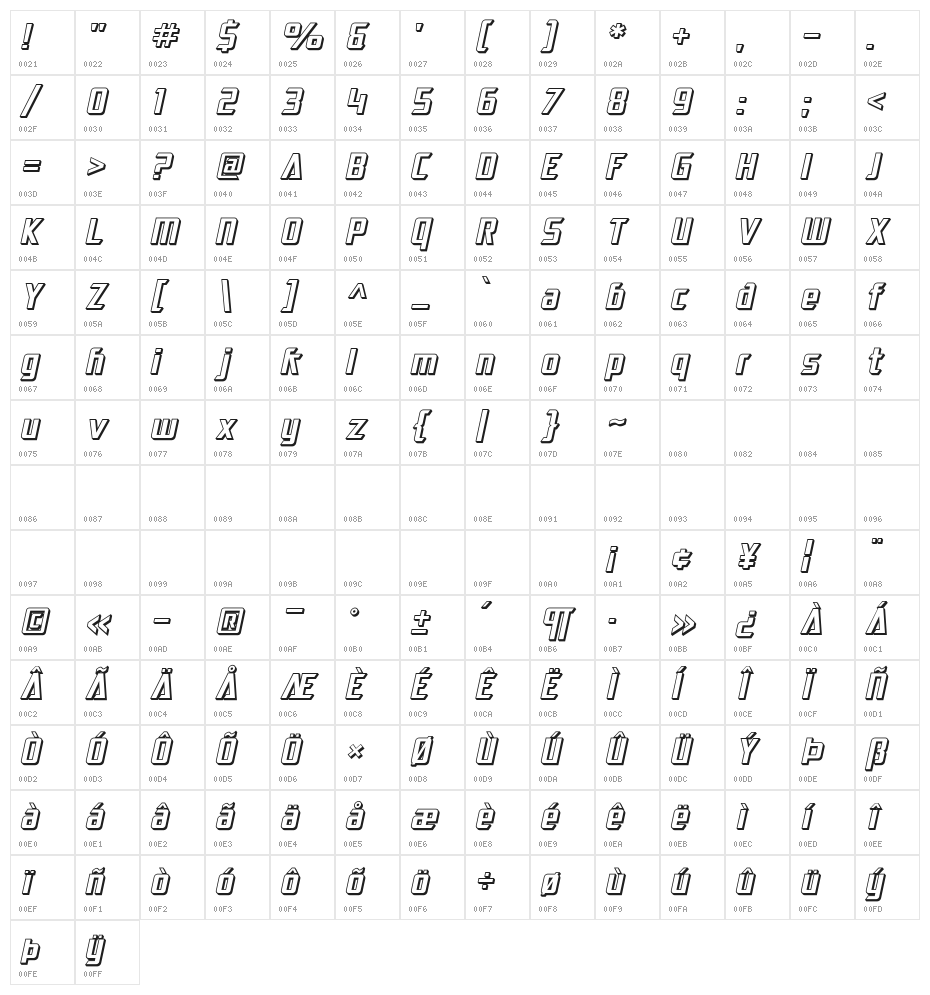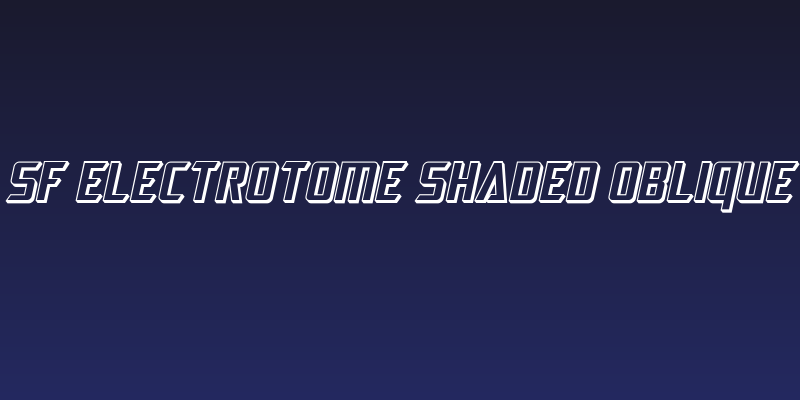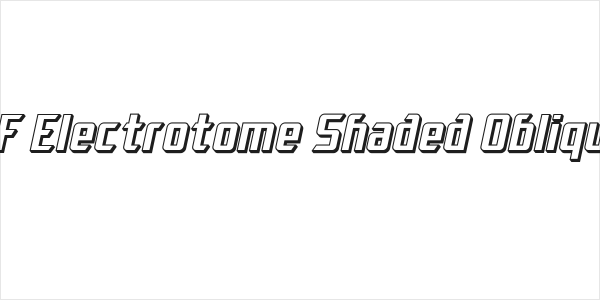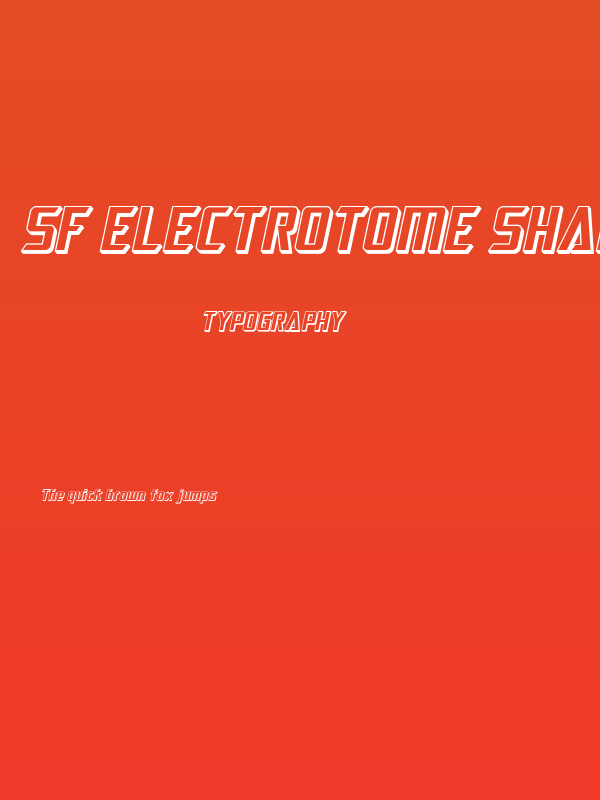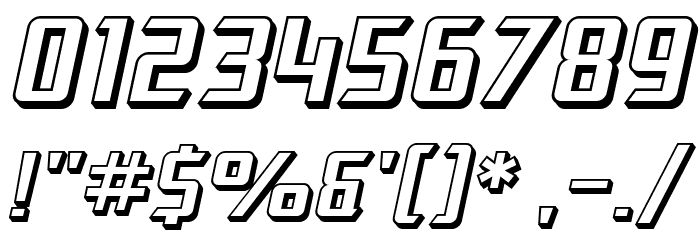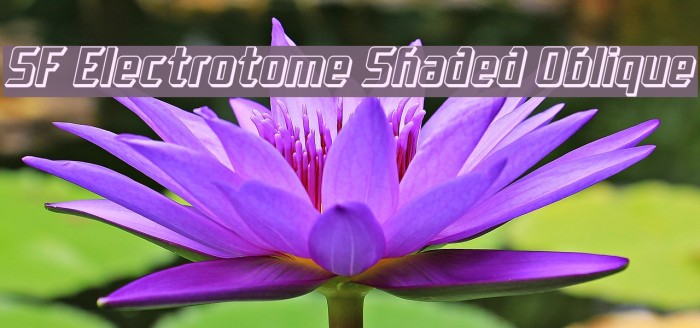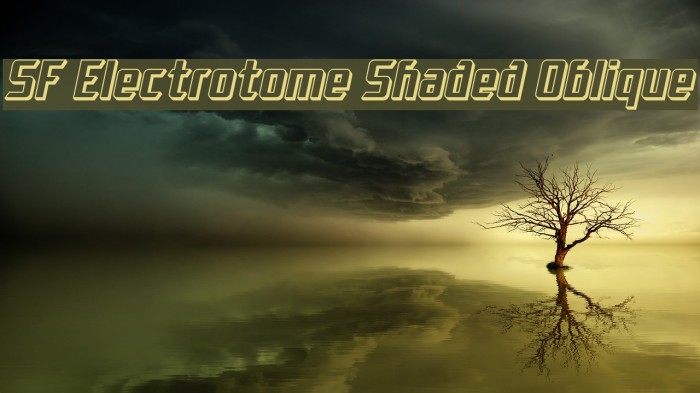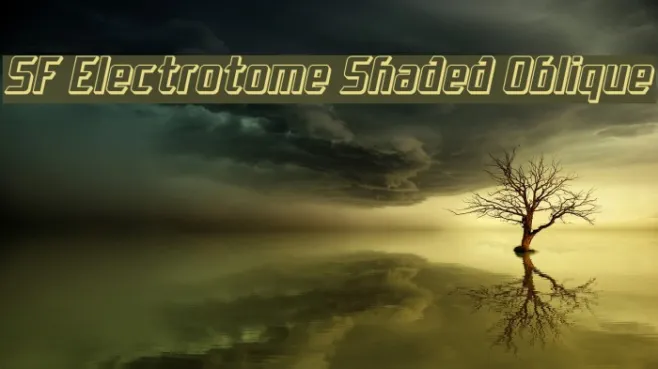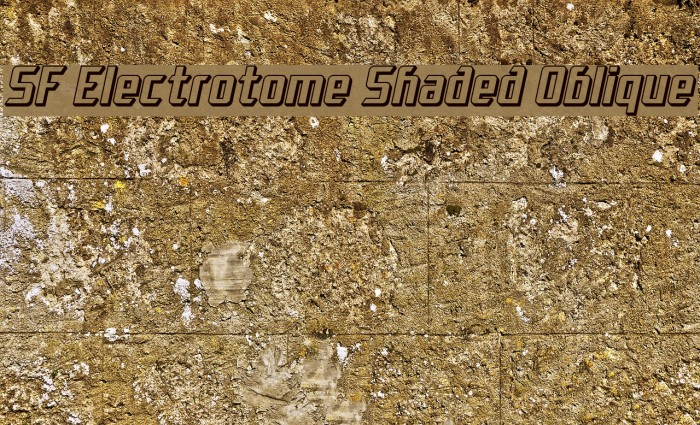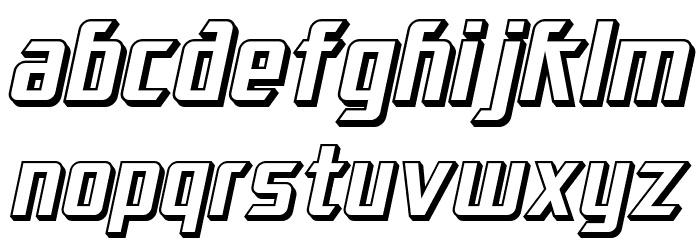
SF Electrotome Shaded Oblique Font
SF Electrotome Shaded Oblique Description
This font features a bold, futuristic design with a distinct oblique angle, giving it a dynamic and energetic appearance. The characters are outlined with a shaded effect, adding depth and a three-dimensional look. The uppercase and lowercase letters maintain a consistent style, with sharp angles and geometric shapes. The numerals and special characters follow the same aesthetic, ensuring uniformity across all glyphs. This font's unique style makes it stand out, ideal for projects that require a modern and edgy touch.
| Proposed Projects | Ideal for sci-fi themed designs, video game titles, tech branding, and modern posters. |